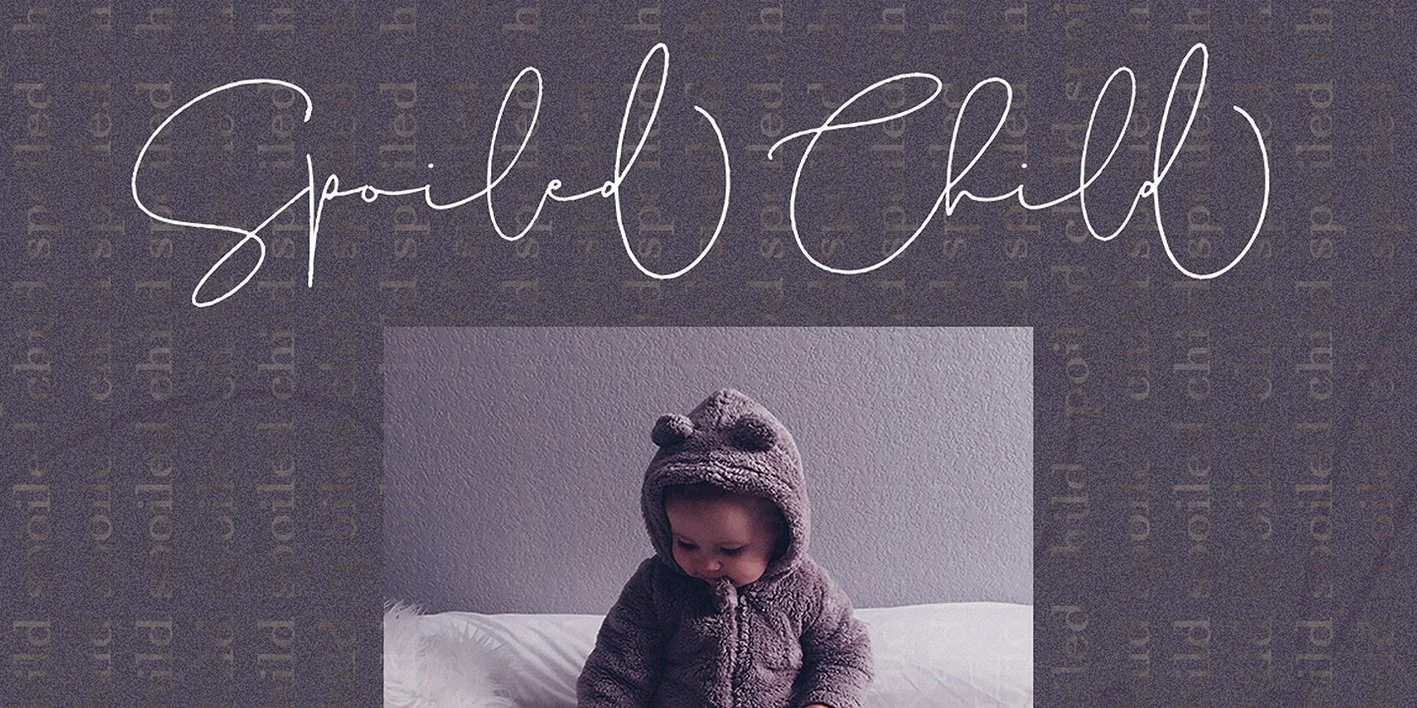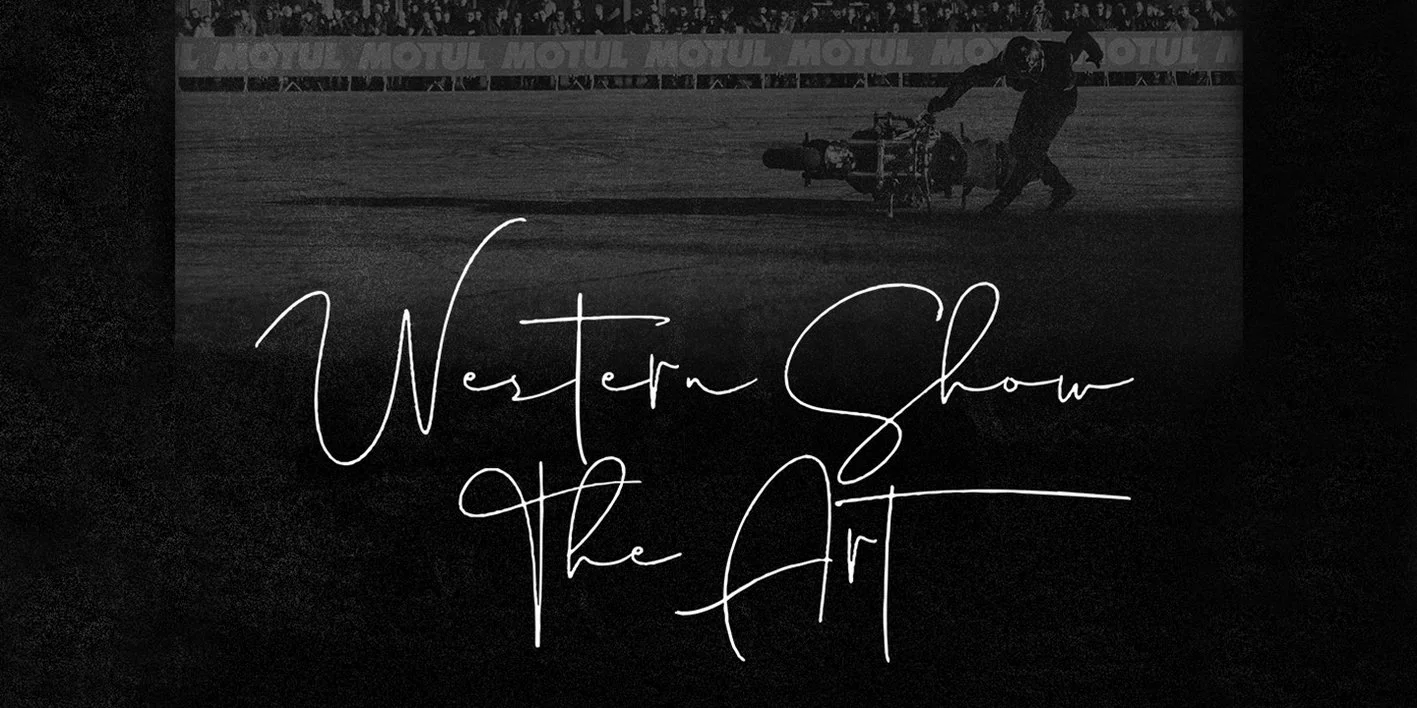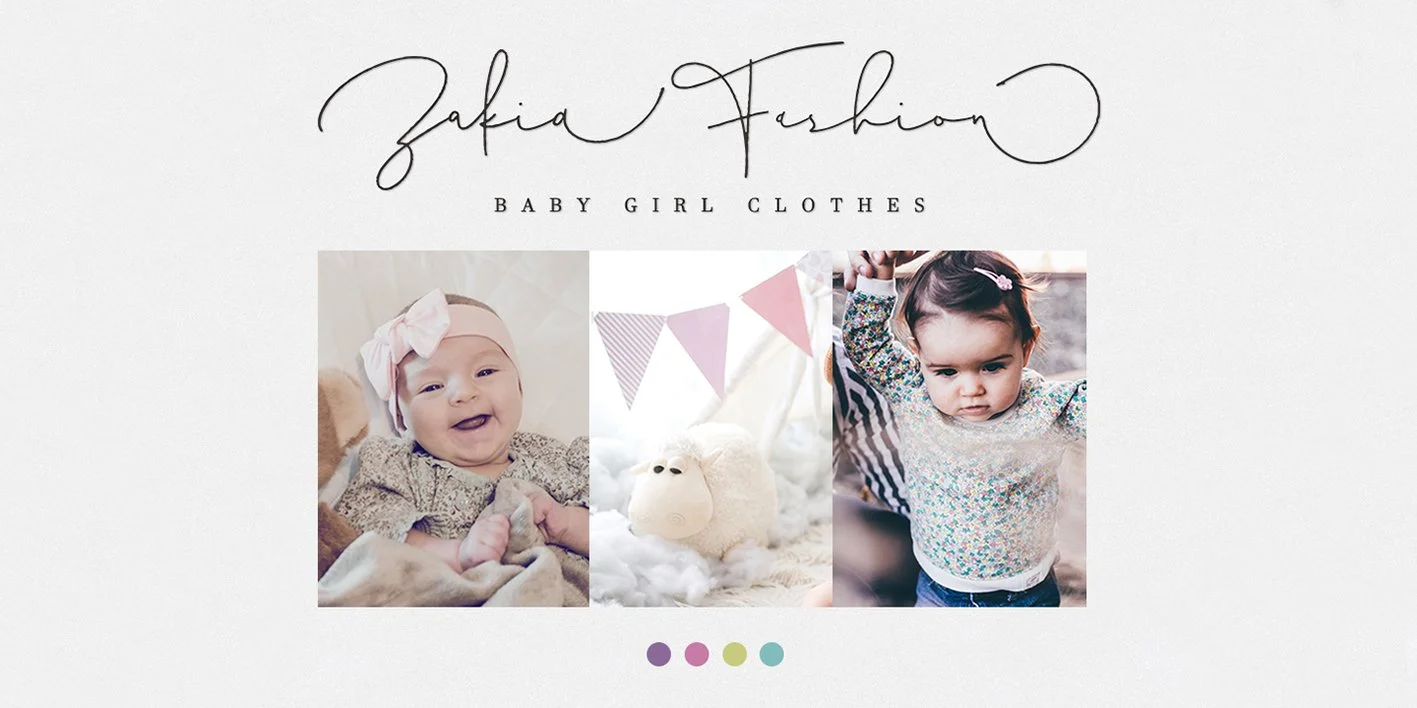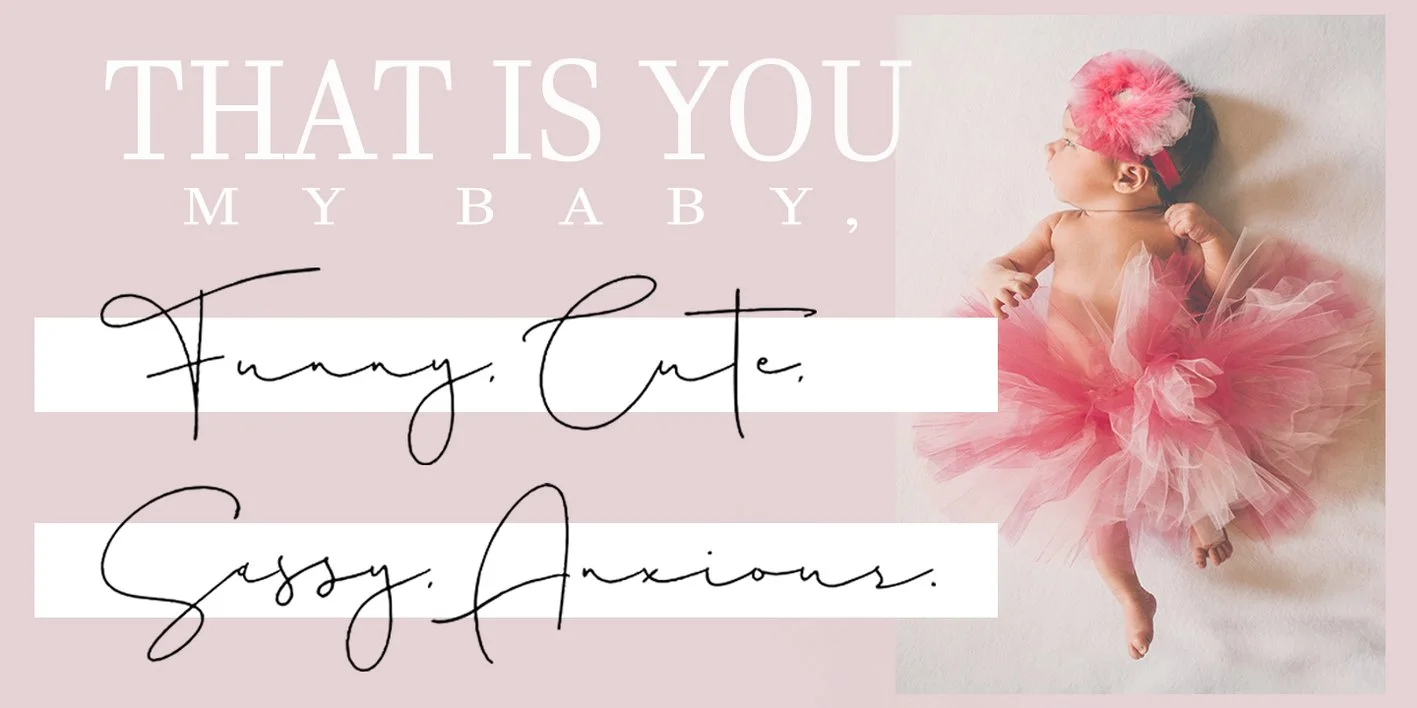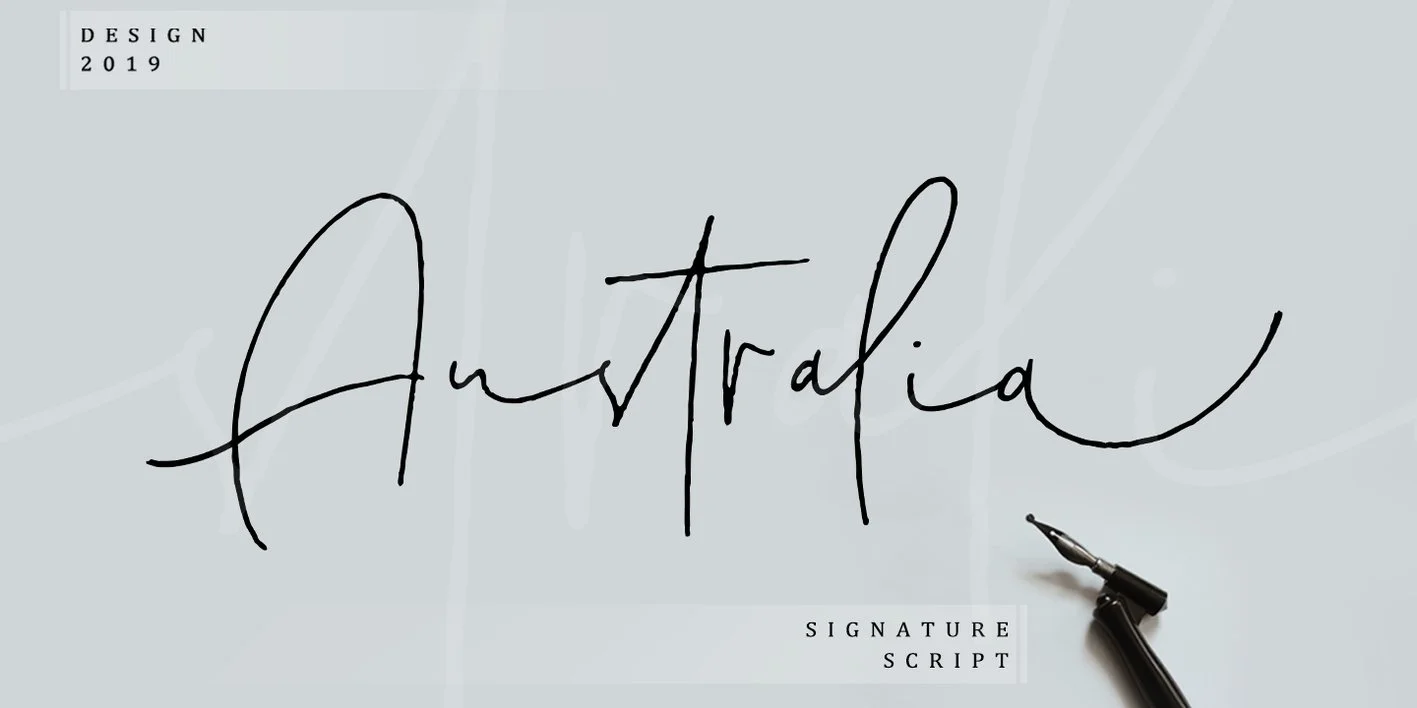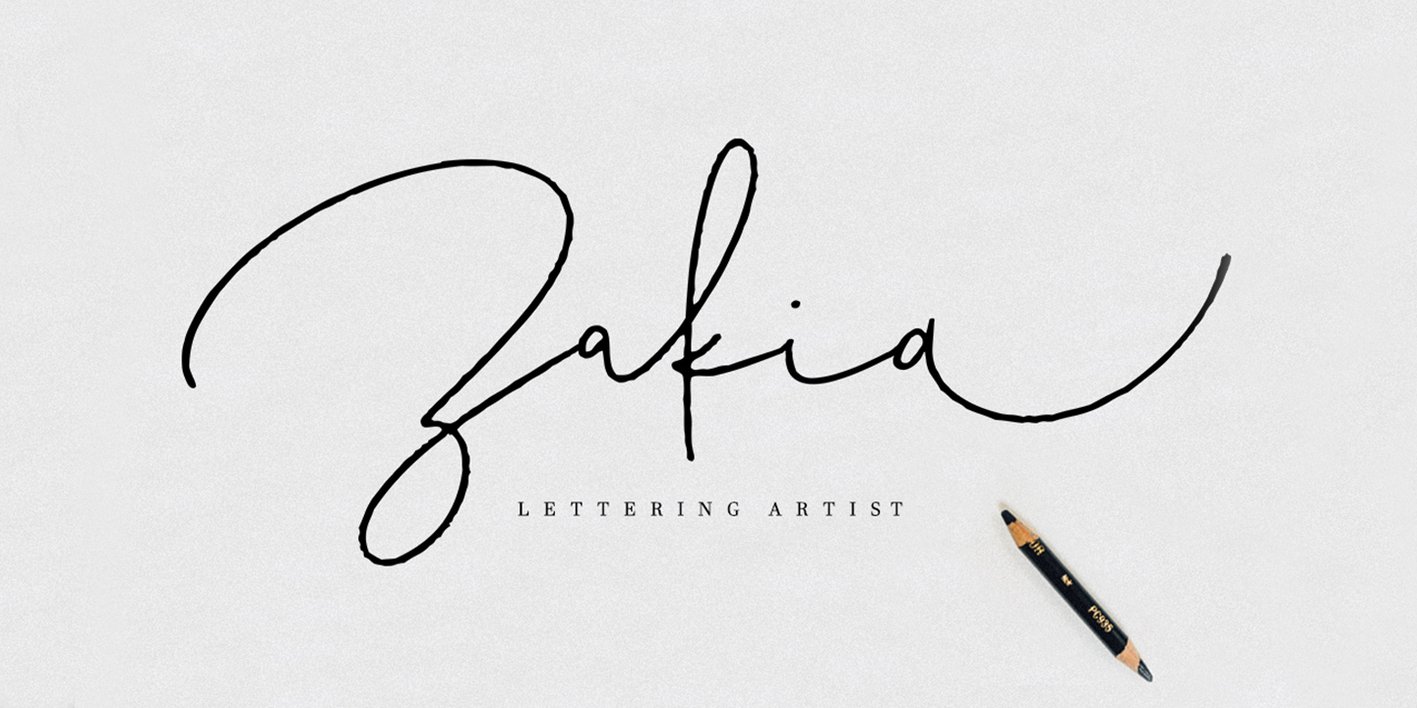
Australia Script Font
When a design brief calls for both visual harmony and precise spacing and immediate visual impact, type choices matter — Australia Script answers that brief. The typeface brings an elegant, calligraphic sensibility to a broad range of creative disciplines, with distinctive character without sacrificing readability that holds up whether the work is print-first or screen-first.
In practice, Australia Script proves particularly effective for bridal materials, fragrance labels, annual reports, editorial layouts, luxury stationery. Designers reaching for it find that the type decisions feel resolved rather than laboured — a useful quality when client timelines are tight.
The range of applications extends to fashion editorials, beauty packaging, perfume labels, feminine branding. That breadth is deliberate: the proportions and spacing were stress-tested across a wide range of mock briefs before the typeface was finalised.
The consistent rhythm of Australia Script across a full paragraph creates the kind of even grey value that makes extended reading comfortable, a detail that matters more in long-form content than its subtlety might suggest.
Graphic designers working on identity systems find Australia Script a reliable choice for projects that demand both personality and restraint. The design avoids the self-conscious quirkiness that dates quickly, settling instead for considered distinctiveness that holds up over time.